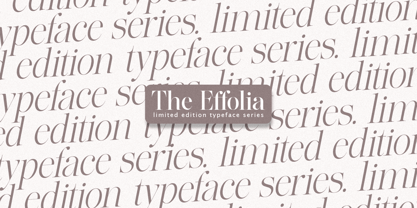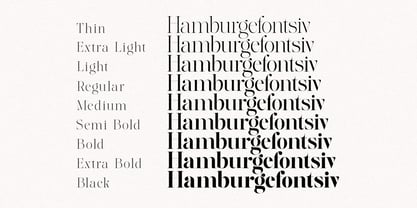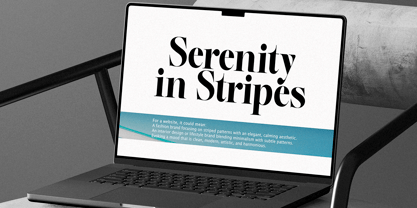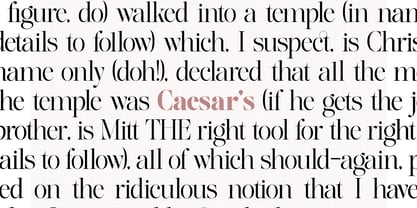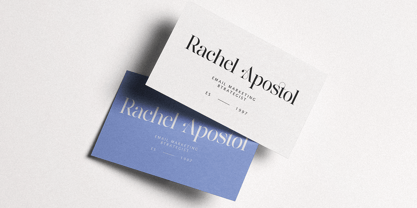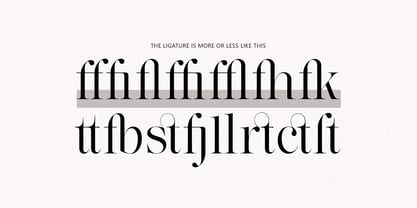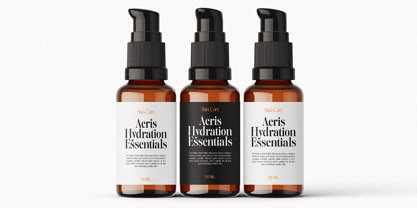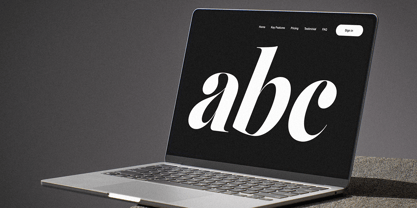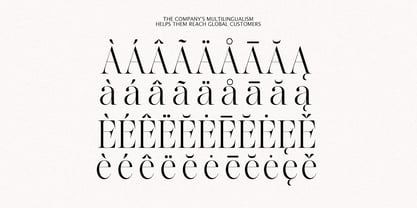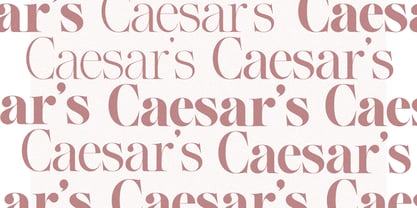
The Effolia
The The Effolia Font Family was designed by Haikal Juanda and published by Pista Mova. The Effolia contains 135 styles and family package options. More about this family
Introducing The Effolia: A Serif Typeface for Modern Aesthetics The Effolia is part of The Softly Serif font family, renowned for its blend of classic serif elegance and modern sophistication. However, please note that this package does not include all the alternates from The Softly Serif series. For the full experience and additional variants, you can view the original font here: https://www.myfonts.com/collections/the-softly-serif-font-pista-mova?queryId=73124e52d05be15abea6d3b7e7b9d845&index=universal_search_data_date_dec_standard&objectIDs=MTAyMDQzMV80NDY4NTBfMTc0NjYyMzc3OQ In this package, you will receive 81 font files from 9 family styles, giving you a versatile collection to suit a wide range of design needs. Experience the charm of timeless elegance with The Effolia, a carefully crafted serif typeface that blends classic charm with contemporary style. Its high-contrast strokes and graceful curves create a visual symphony that captivates the eye and elevates any design. Whether you’re creating a sophisticated editorial layout, a striking brand identity, or an engaging website, The Effolia’s versatility and refined beauty will make your work stand out. Immerse yourself in the world of The Effolia, where each character has been thoughtfully designed to exude both strength and refinement. From its meticulously sculpted serifs to its perfectly balanced proportions, this typeface stands as a testament to the timeless power of classic typography. Its true italics, with their distinctive personality, add dynamic movement and visual intrigue, enabling you to craft designs that are both captivating and effortlessly readable. Key Features: Effortless Elegance The Effolia clean lines and balanced proportions exude classic charm, making it ideal for a variety of applications. Elegant Ligatures Add a touch of personality with a curated collection of ligatures, creating unique and eye-catching letter combinations. OpenType Features Take full control of your typography with powerful OpenType features, including ligatures. Multilingual Support With support for over 90 languages, The Effolia ensures your message reaches a global audience. True Italics These are not just slanted versions—they’re thoughtfully designed to harmonize with the upright forms, creating a cohesive and elegant rhythm. Perfect for: Editorial Design: Magazines, newspapers, books – The Effolia legibility and elegance make it perfect for long-form text. Branding & Logos: Create a sophisticated and memorable brand identity with The Effolia timeless appeal. Web Design: The Effolia clean lines and high contrast ensure optimal readability on screens of all sizes. Packaging & Print: Enhance your product packaging and printed materials with a touch of classy luxury. Invitations & Stationery: Make a lasting impression with The Effolia elegant presence on invitations, greeting cards, and other stationery. Experience the difference with The Effolia that combines elegance with versatility. Download today and open up a world of typographic possibilities. Happy creating, everyone!